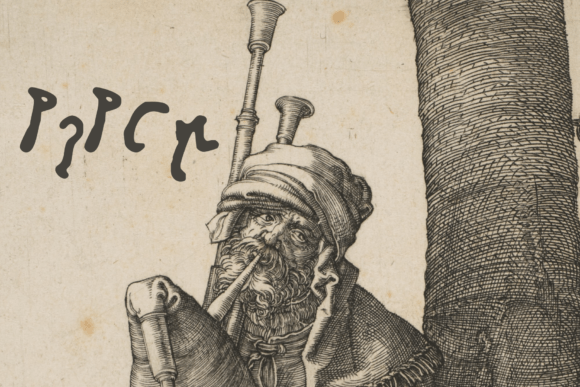
Cursivo Saxonio Font: Unveiling the Ancient Hand-Lettering of the VIII and XI Centuries
The Cursivo Saxonio font is a typeface that has garnered significant attention in recent times, particularly among typography enthusiasts and fans of H.P. Lovecraft’s works. Inspired by the famous book “The Case of Charles Dexter Ward,” this font is a digital representation of the authentic “Insularis” or “Cursivo Saxonio” hand-lettering used in Britain during the VIII and XI centuries.
The Origins of Cursivo Saxonio
The Cursivo Saxonio font is a revival of the ancient hand-lettering style that originated in Britain during the VIII and XI centuries. This style, also known as “Insularis,” was characterized by its distinctive letterforms, which were influenced by the Latin alphabet. The Insularis script was used extensively in illuminated manuscripts, such as the famous Book of Kells, which dates back to the IX century.
The Influence of H.P. Lovecraft
The Cursivo Saxonio font was directly inspired by H.P. Lovecraft’s book “The Case of Charles Dexter Ward.” Lovecraft, a master of horror fiction, was known for his fascination with ancient mythology and the supernatural. In his works, he often employed archaic language and typography to create an eerie atmosphere. The Cursivo Saxonio font is a testament to Lovecraft’s enduring influence on modern typography.
โCorwinus necandus est. Cadaver aq(ua) forti dissolvendum, nec aliq(ui)d retinendum. Tace ut potesโ
Characteristics of the Cursivo Saxonio Font
The Cursivo Saxonio font is characterized by its unique letterforms, which reflect the authentic hand-lettering style of the VIII and XI centuries. Some of its notable features include:
- Distinctive letterforms with intricate flourishes
- Uncial and half-uncial lettering styles
- Use of ligatures and abbreviations
- Ornate initial letters
Typography in the Digital Age
The Cursivo Saxonio font is a remarkable example of how ancient typography can be revived and adapted for modern use. In the digital age, typography has become an essential aspect of design, with a vast array of fonts available at our fingertips. However, the Cursivo Saxonio font stands out for its historical significance and aesthetic appeal.
Applications of the Cursivo Saxonio Font
The Cursivo Saxonio font has various applications in design, including:
- Typography for horror and fantasy fiction
- Design of illuminated manuscripts and calligraphy
- Creation of atmospheric and eerie visual effects
- Historical and academic projects
The Cursivo Saxonio font is a remarkable typeface that pays homage to the ancient hand-lettering style of the VIII and XI centuries. Inspired by H.P. Lovecraft’s works, this font is a testament to the enduring power of typography to evoke atmosphere and mood. Whether used in design, typography, or academic projects, the Cursivo Saxonio font is an exceptional choice for those seeking to add a touch of history and mystery to their work.